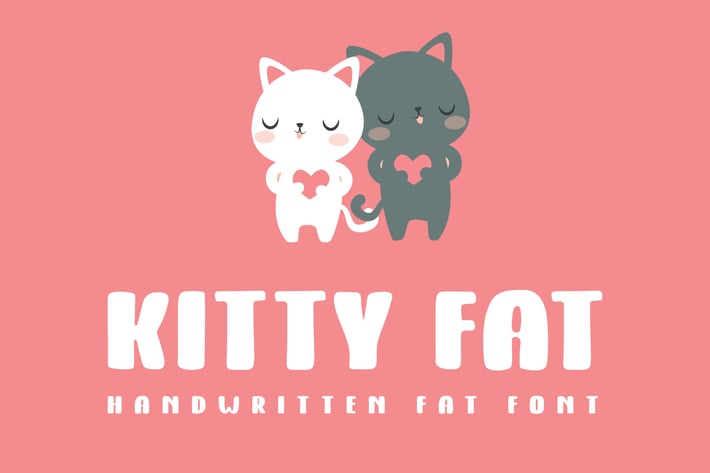
Kitty Fat - Handwritten Font
Kitty Fat is new handwritten bold font made with large brush pen.
Bold and smooth fonts perfectly fits for kids and cartoon projects.
Uppercase,
Numbers,
* Punctuation's and Multilingual characters.
Bold and smooth fonts perfectly fits for kids and cartoon projects.
Uppercase,
Numbers,
* Punctuation's and Multilingual characters.